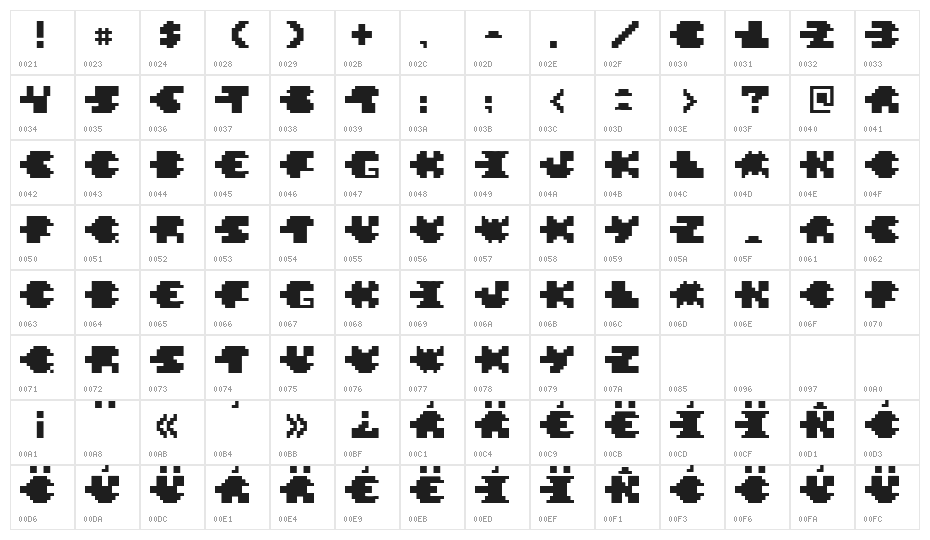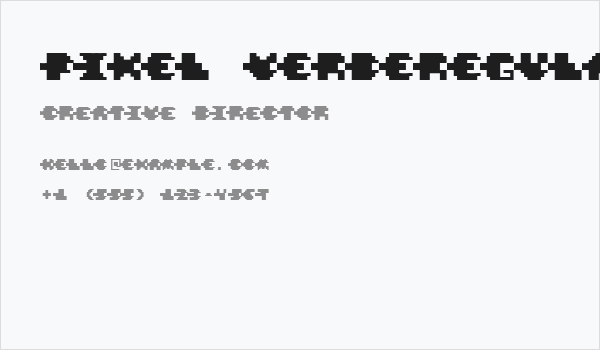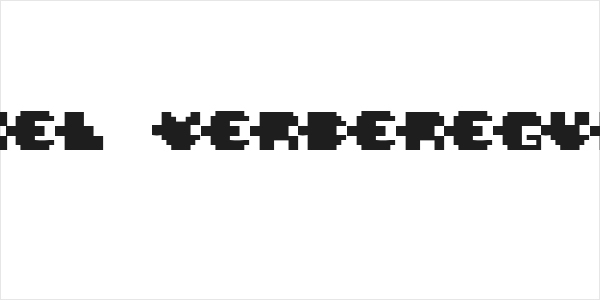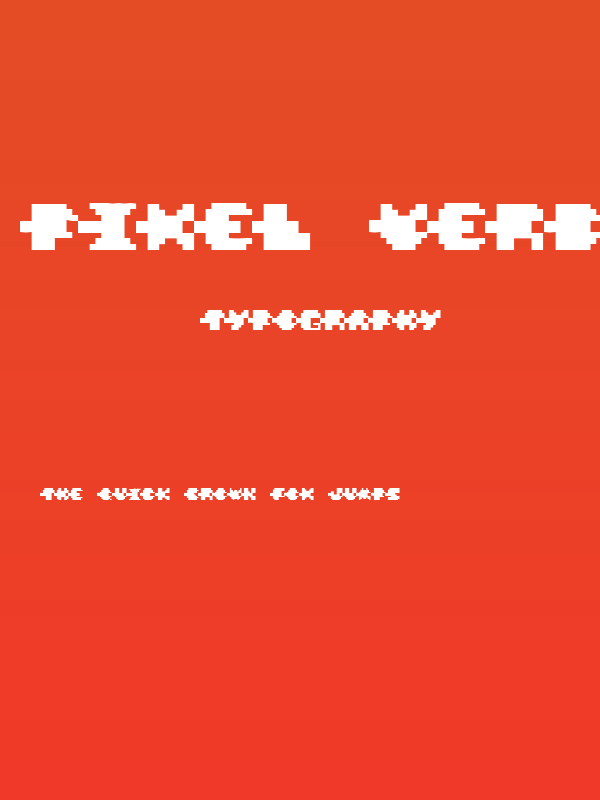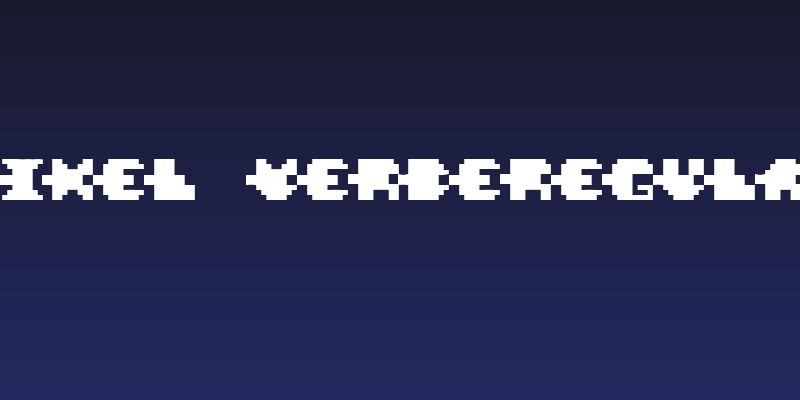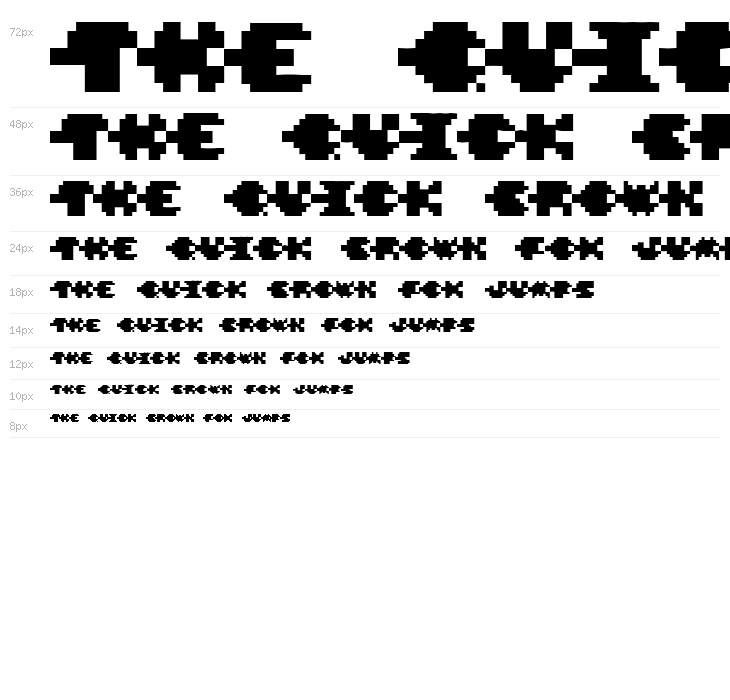
Pixel VerdeRegular Font
Pixel VerdeRegular Description
This font features a distinct pixelated design, reminiscent of early digital and video game aesthetics. Each character is composed of blocky, square shapes that give it a retro, 8-bit appearance. The uniformity in the pixel size across all characters creates a cohesive and nostalgic feel. This style is particularly effective for projects that aim to evoke a sense of nostalgia or pay homage to classic arcade games. The characters are bold and easily legible, making them suitable for various digital applications.
Overall StyleVintage
Use CaseHeadlines, Logos, Digital Art
Proposed ProjectsIdeal for video game design, retro-themed posters, digital art, and any project seeking a nostalgic, arcade-inspired look.